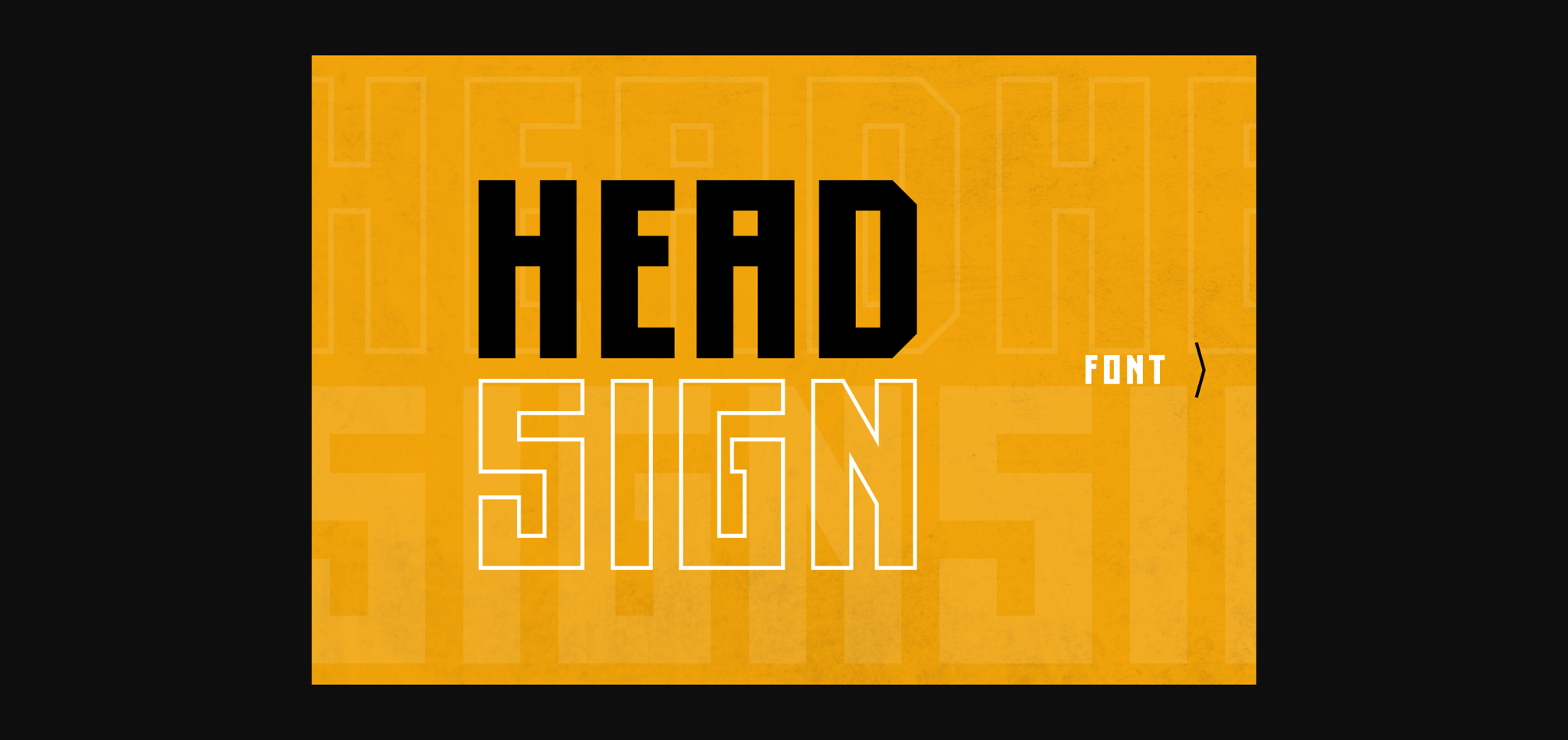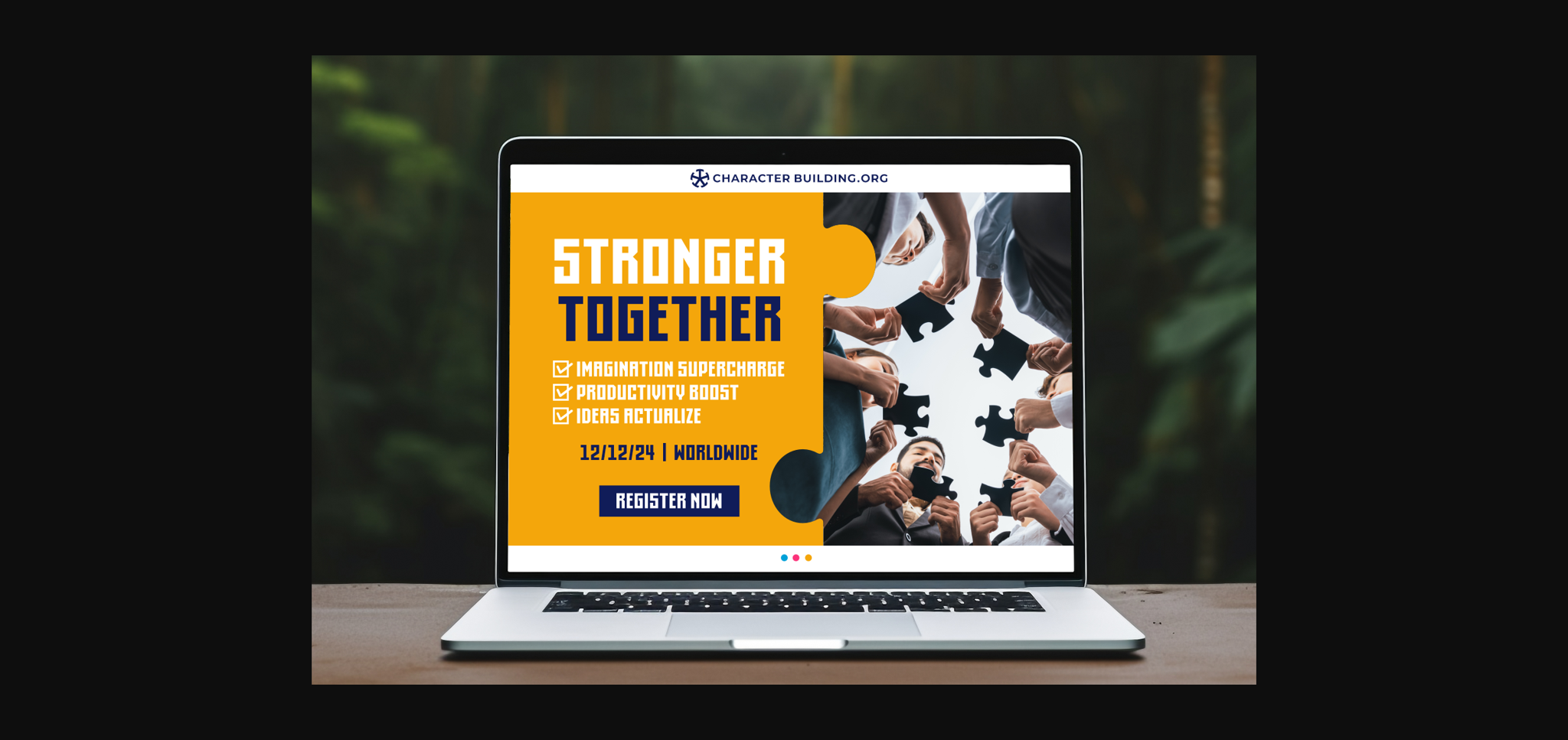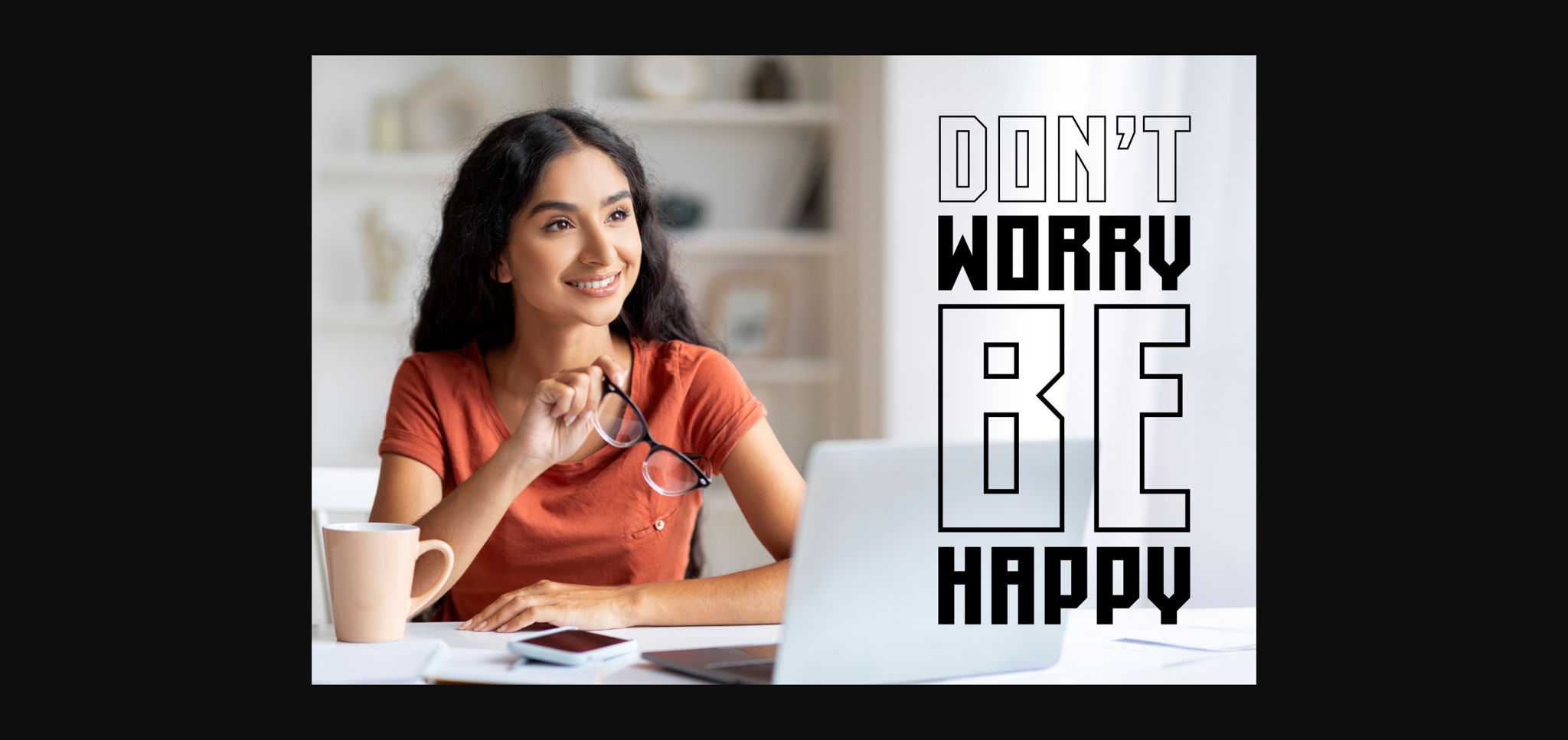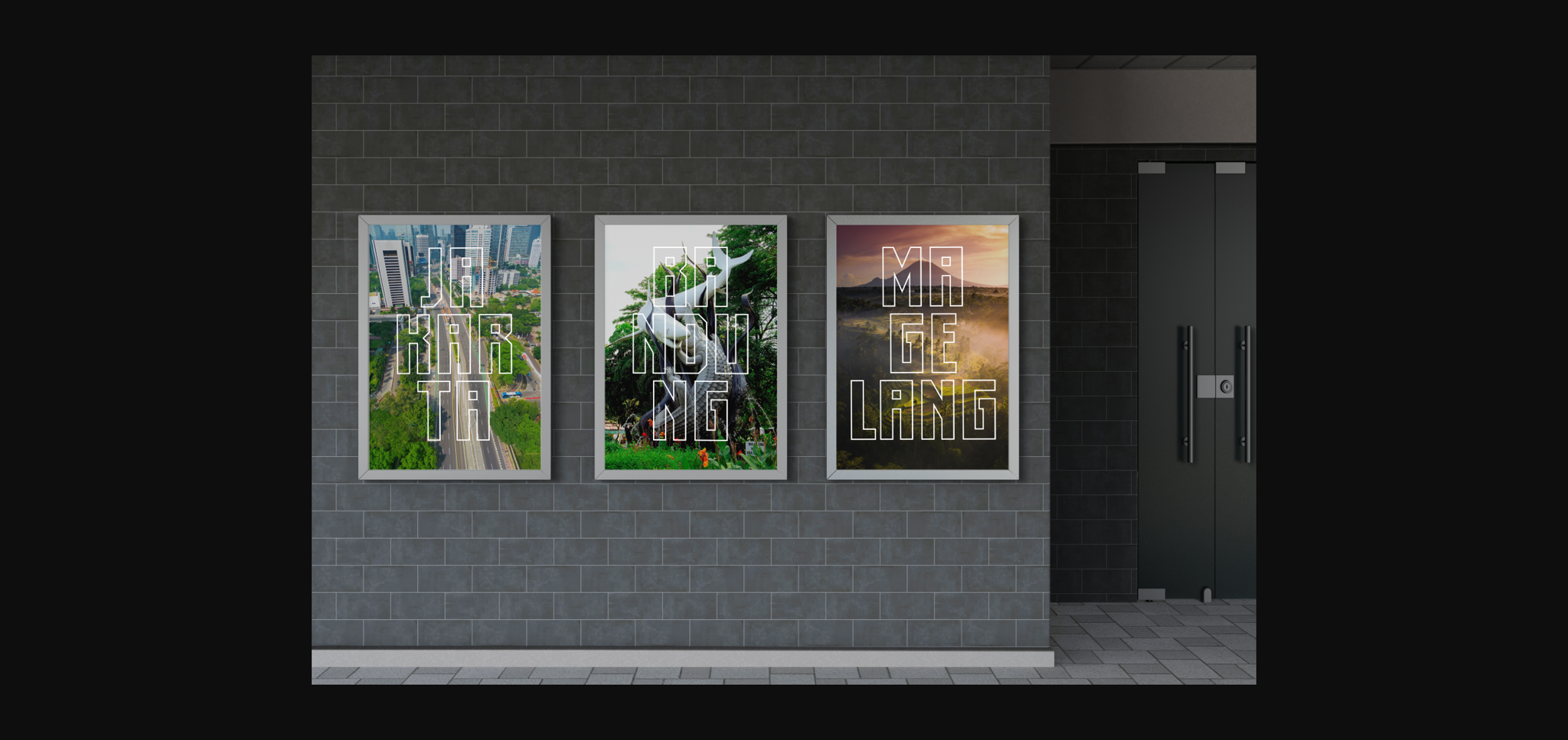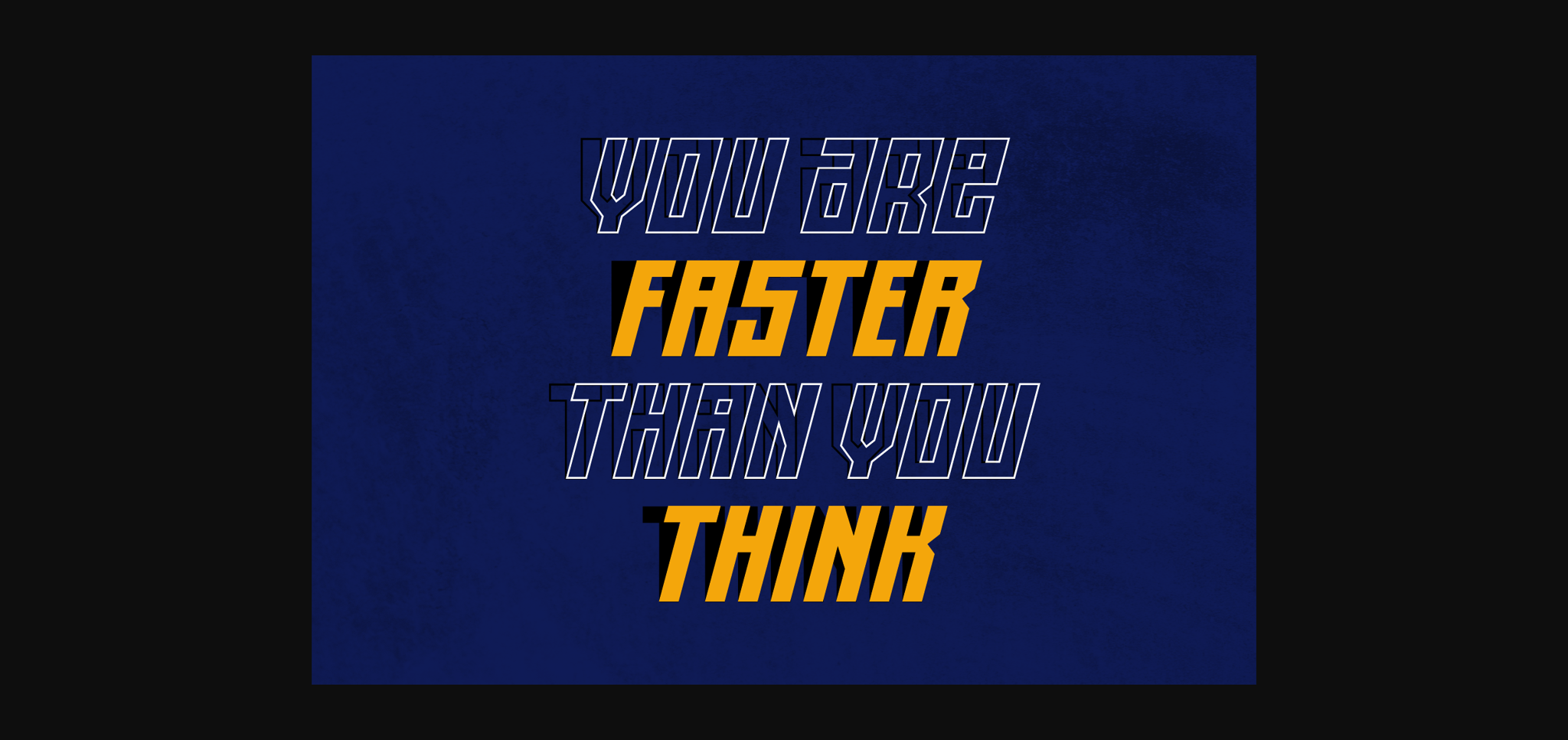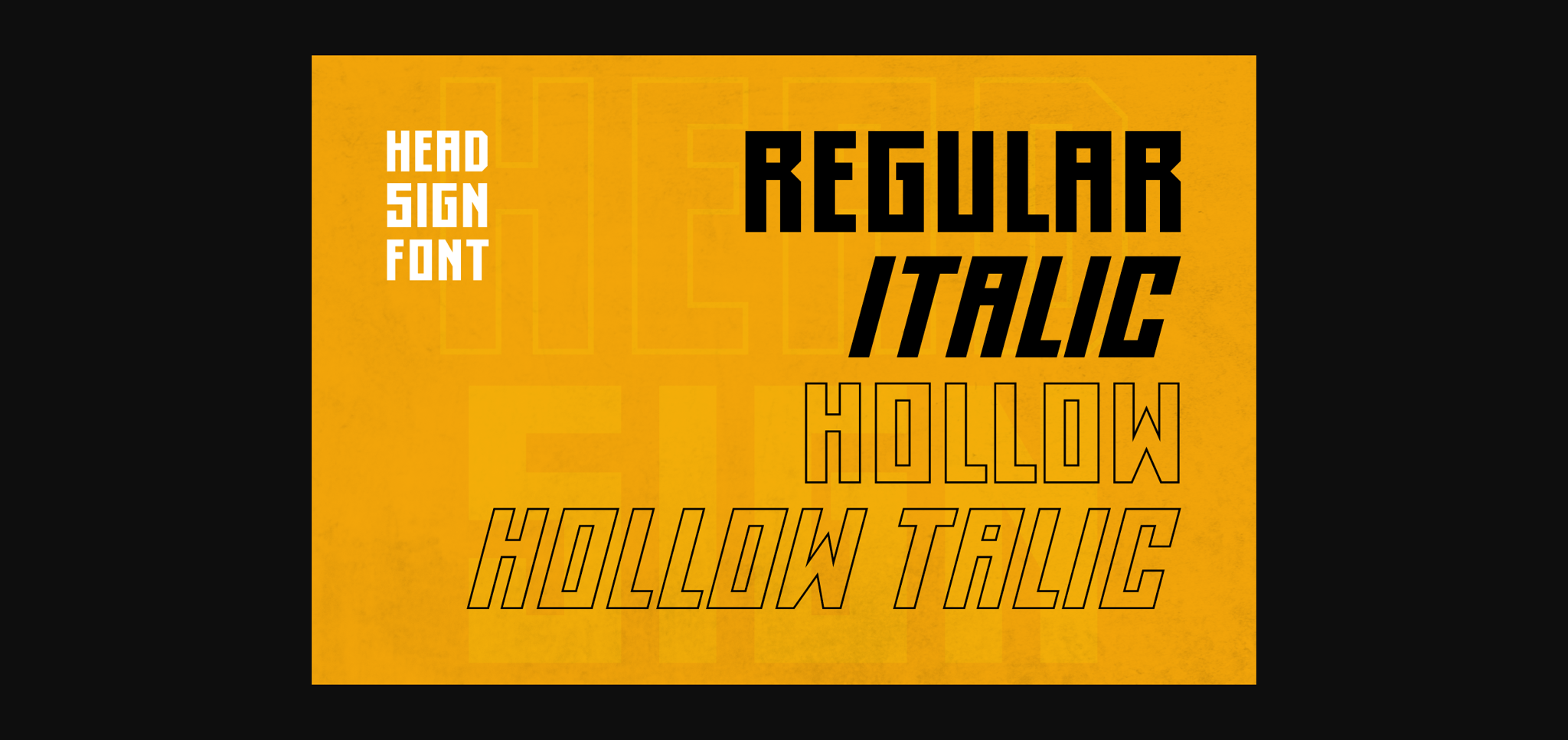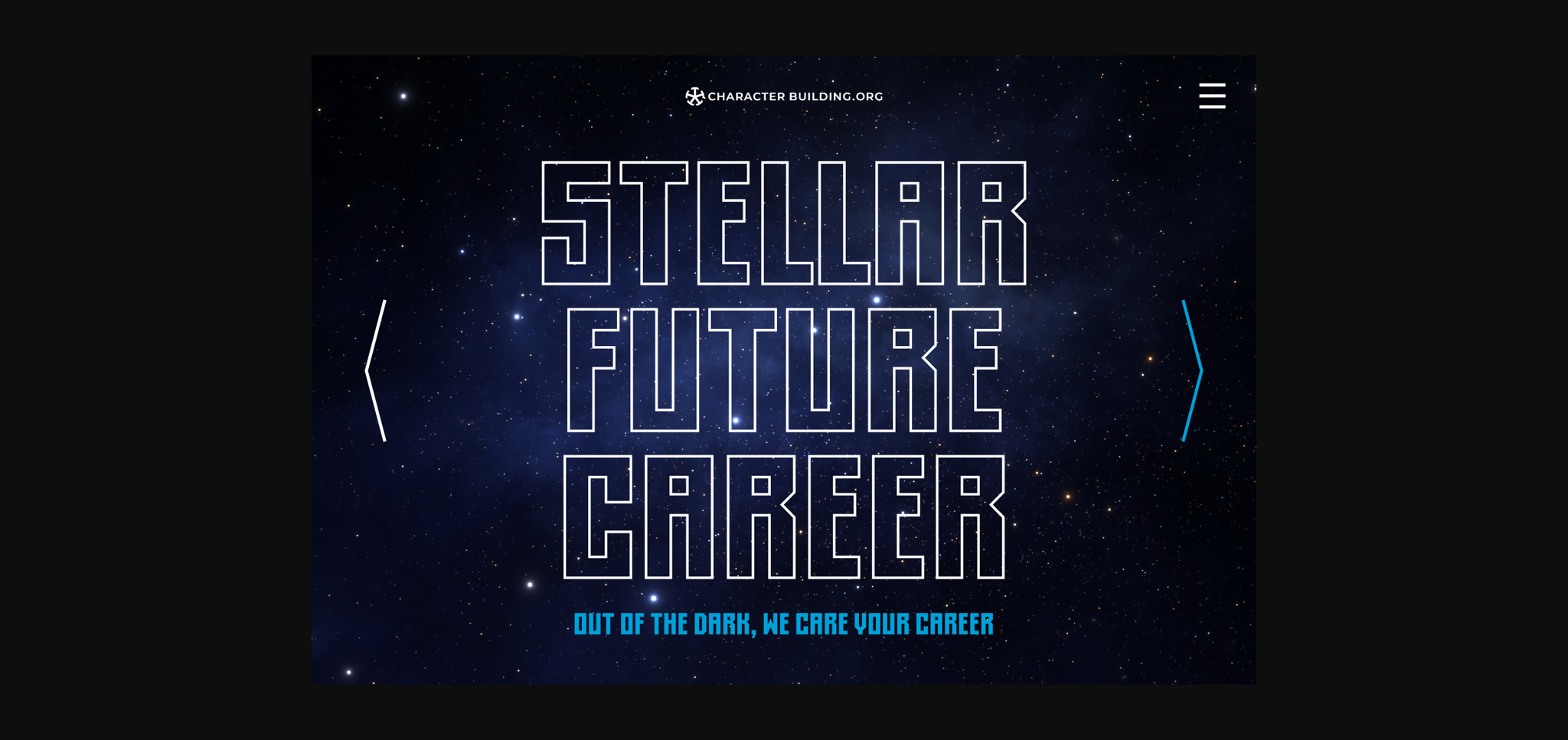
Head Sign Font
About Head Sign Font
Head Sign, a display font, is your go-to choice for making a bold statement. With its distinctive and eye-catching design, Head Sign is perfect for grabbing attention in headlines, banners, and creative displays. Its unique style adds a touch of personality to your text, ensuring that your message stands out. Elevate your visual impact with Head Sign and let your words take center stage in a dynamic and expressive way.